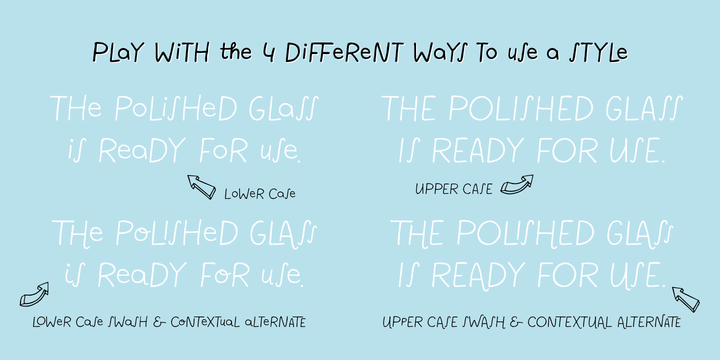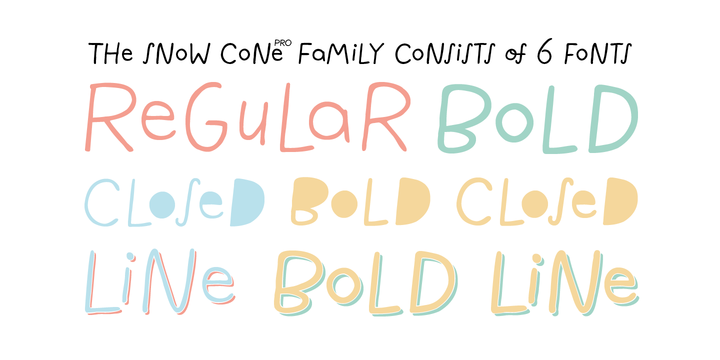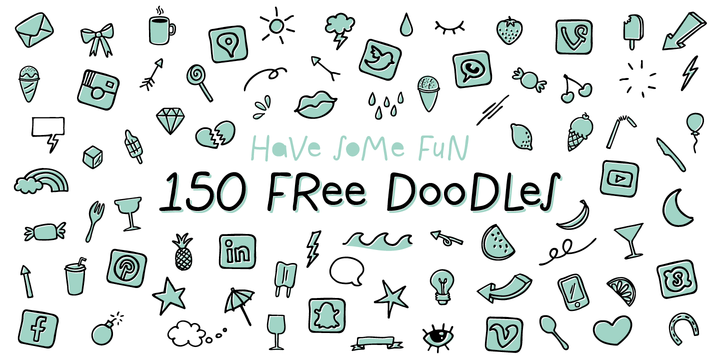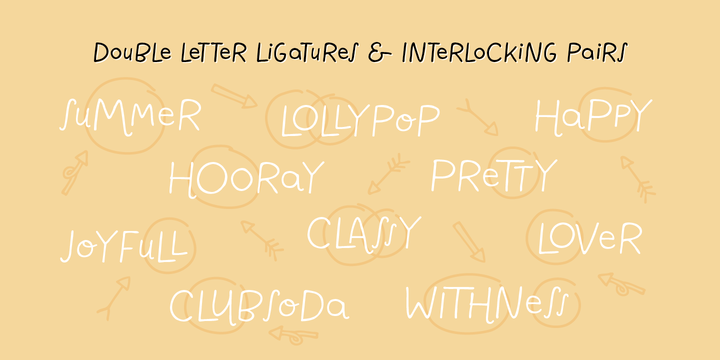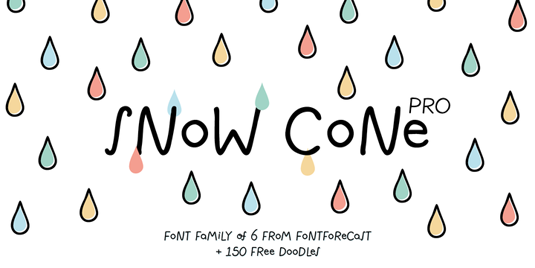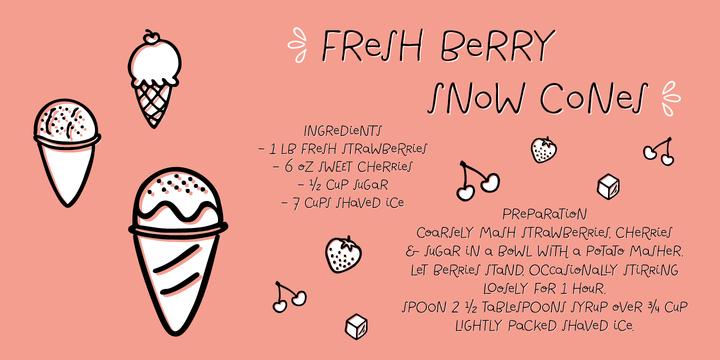
Font of the day: Snow Cone Pro
Snow Cone Pro from Fontforecast
Today's showcased typeface is Snow Cone Pro, created by Marloes Versluys at Netherlands-based foundry Fontforecast. A hand-drawn, playful font, Snow Cone Pro will add a splash of summer to menus, flyers and posters, and it comes with Snow Cone Doodle – 150 little drawings designed to complement the font – absolutely free!